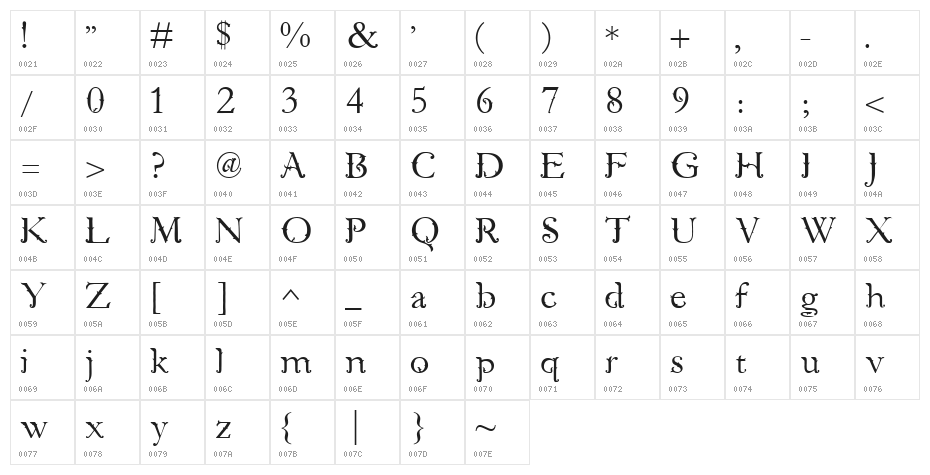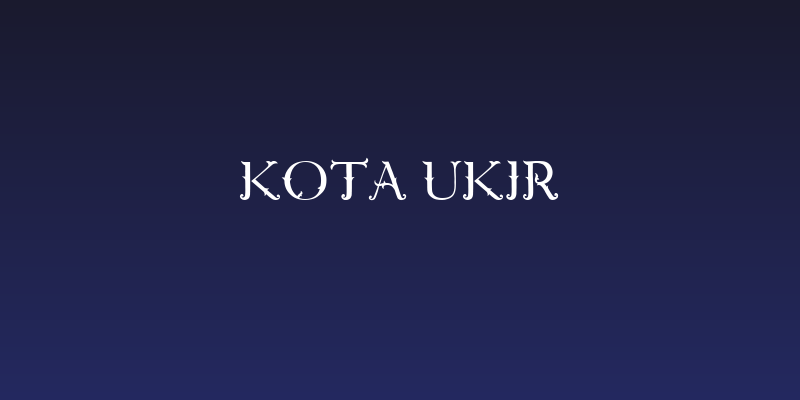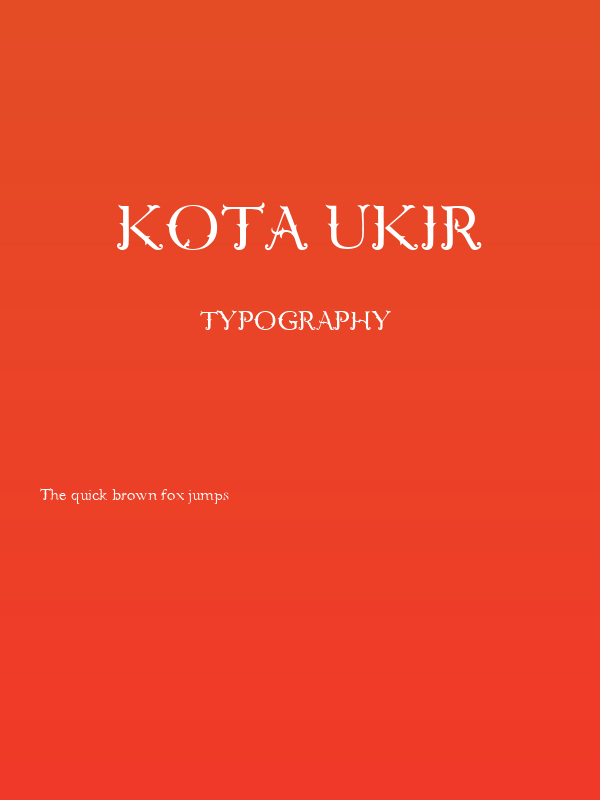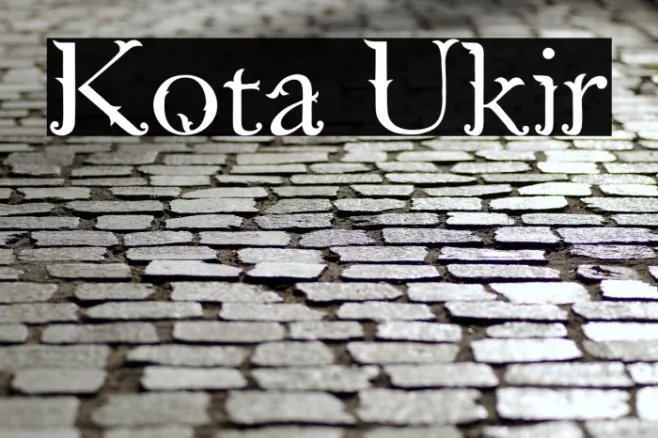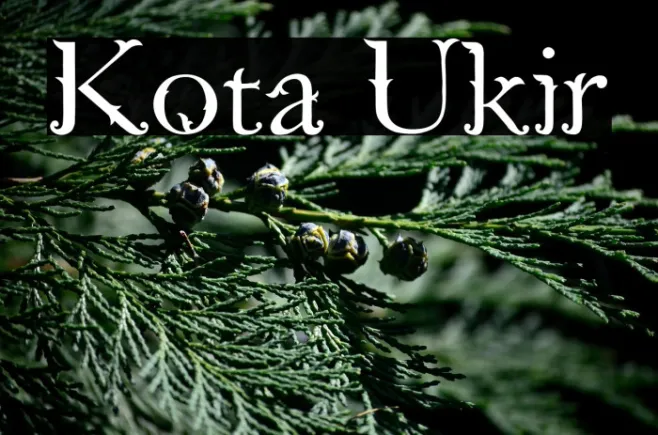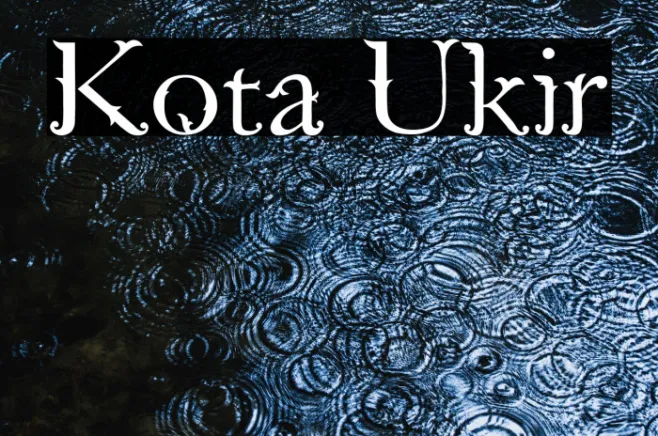
Kota Ukir Font
Kota Ukir Description
This font features an ornate and decorative style with intricate details that give it a unique and artistic flair. The uppercase letters are characterized by elegant swirls and flourishes, adding a touch of sophistication and creativity. The lowercase letters maintain a consistent style, with subtle embellishments that enhance readability while preserving the decorative theme. The numerals are distinct and clear, with a slight curvature that complements the overall design. Special characters are thoughtfully crafted, maintaining the font's artistic integrity. This font is ideal for projects that require a touch of elegance and creativity.
| Proposed Projects | Ideal for wedding invitations, artistic posters, branding, and decorative headings. |